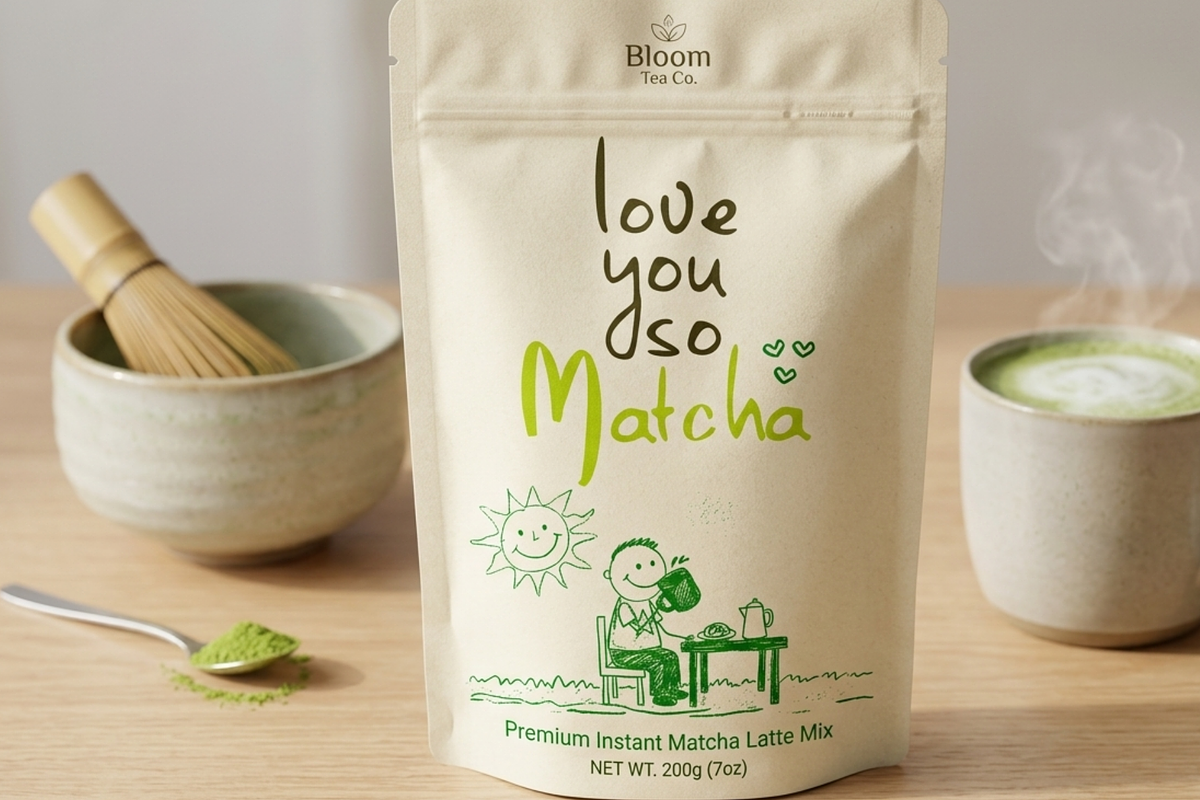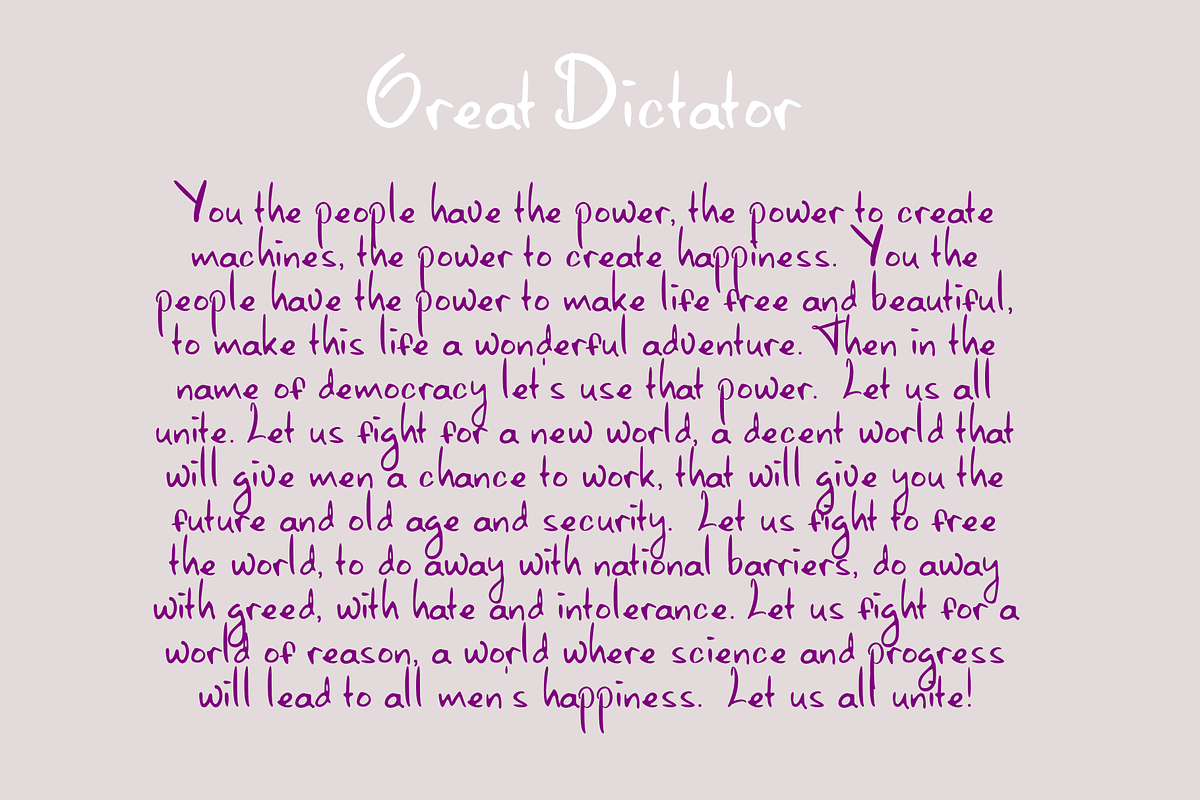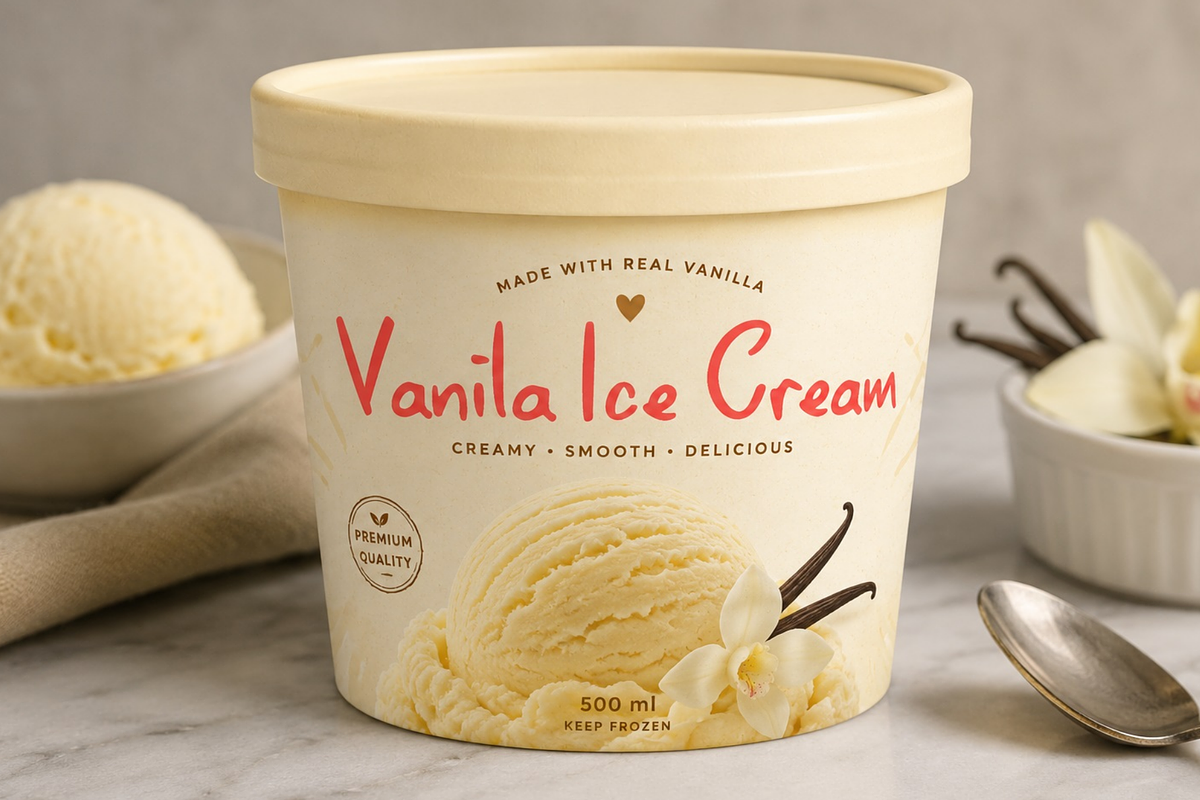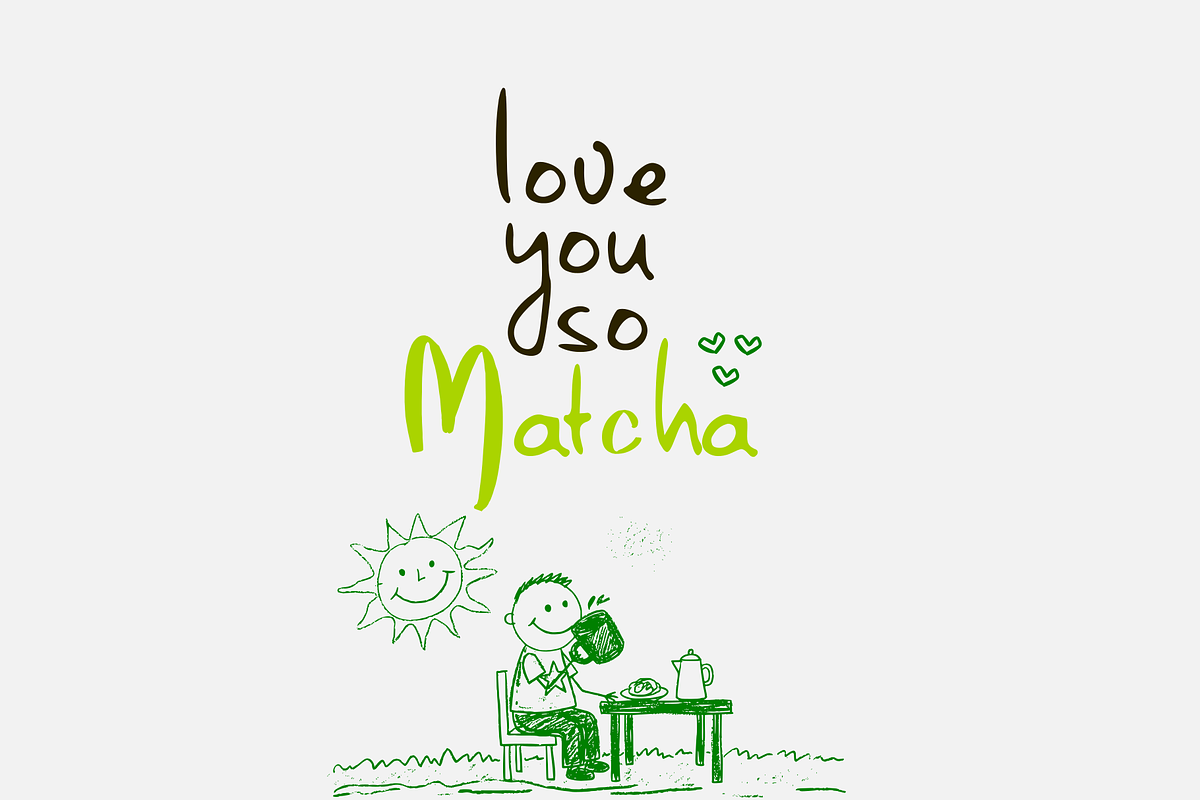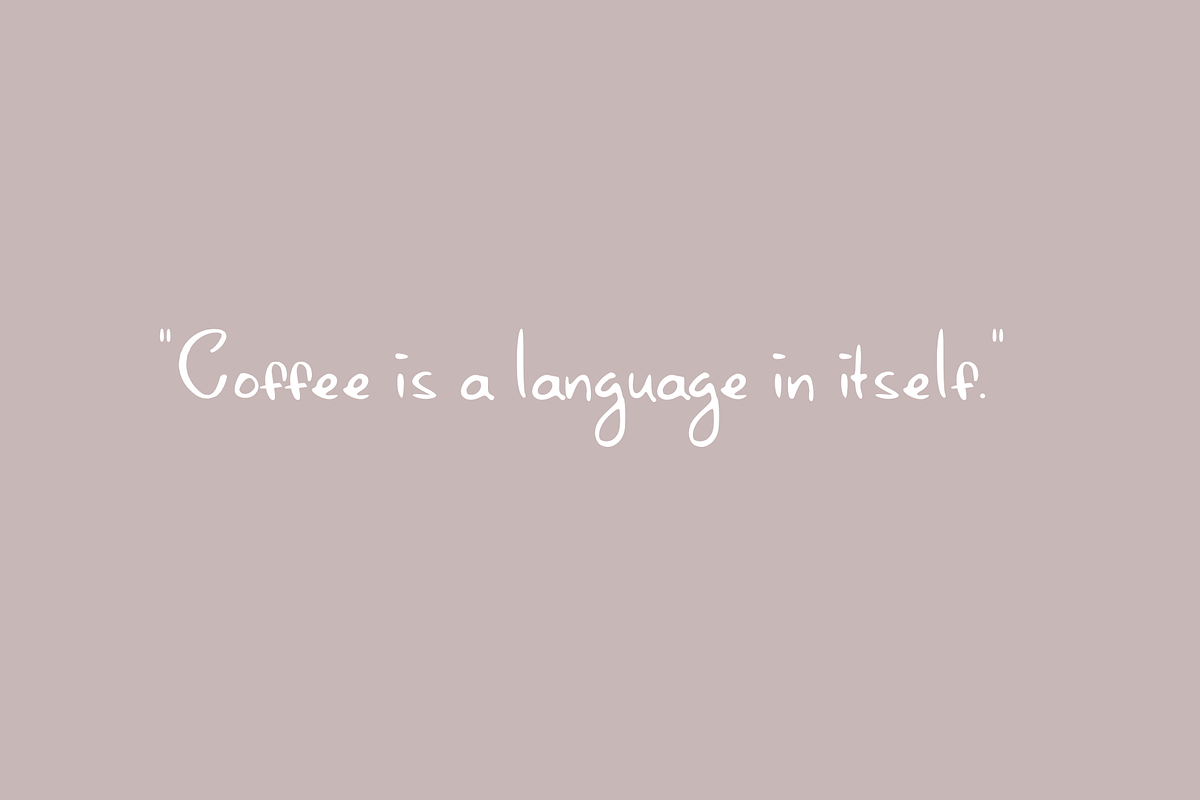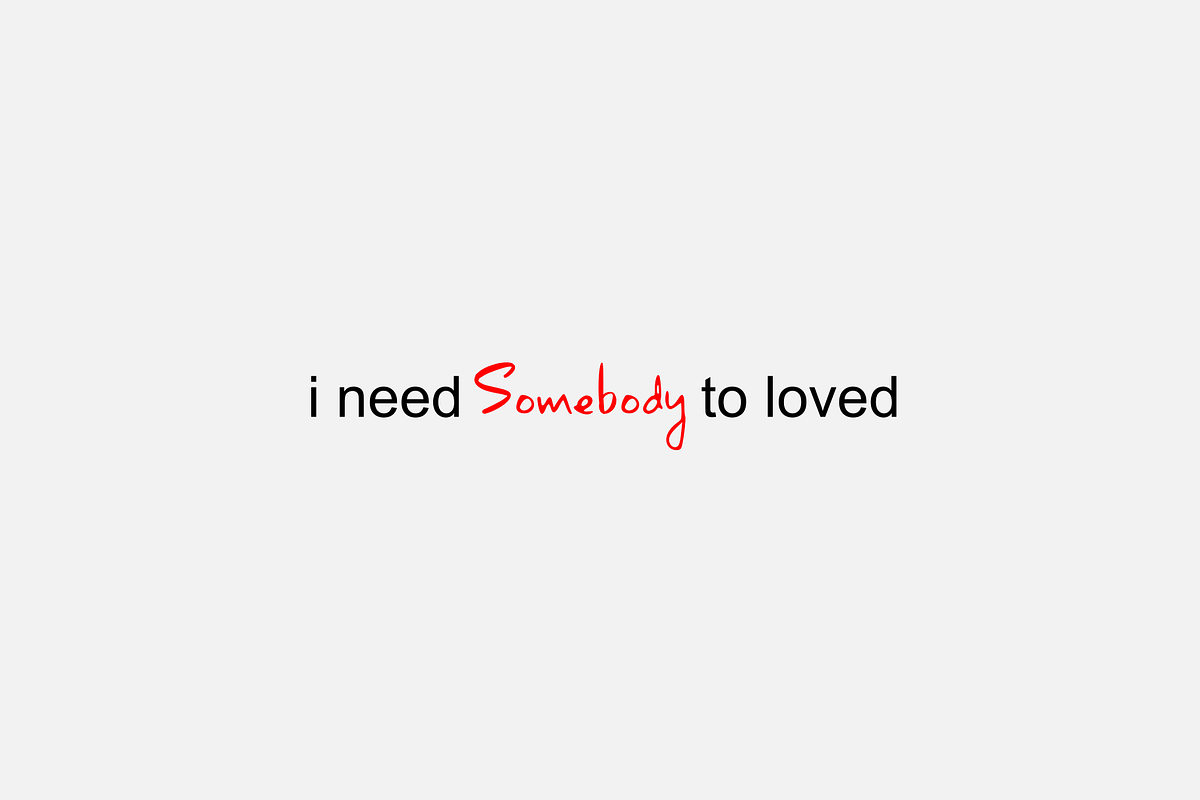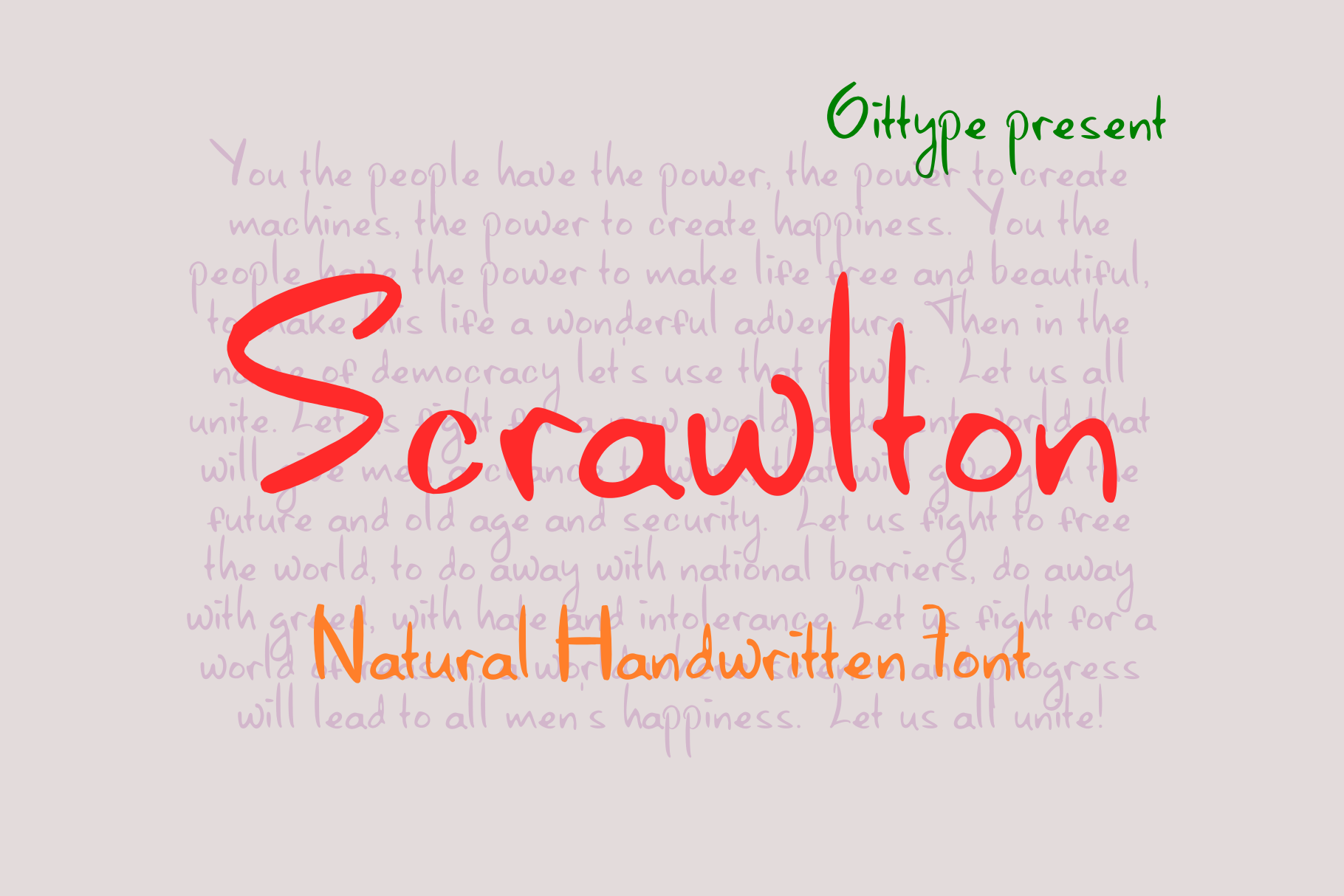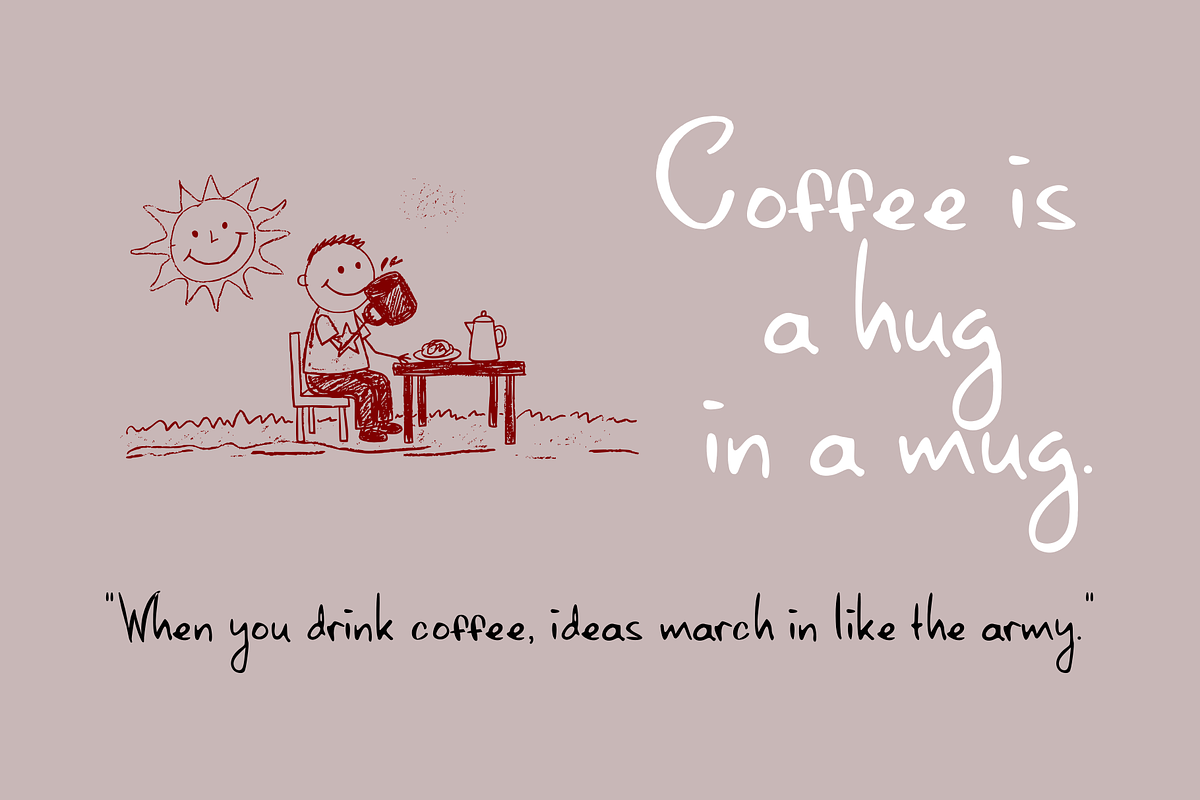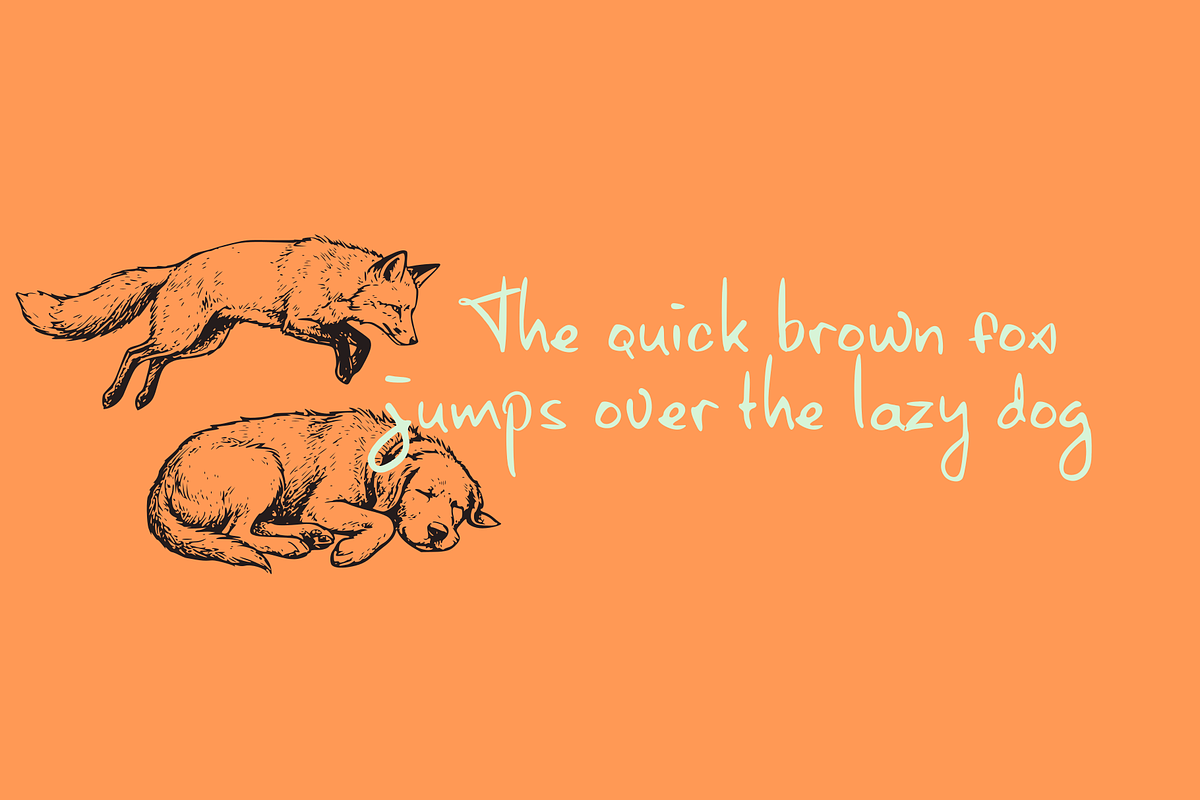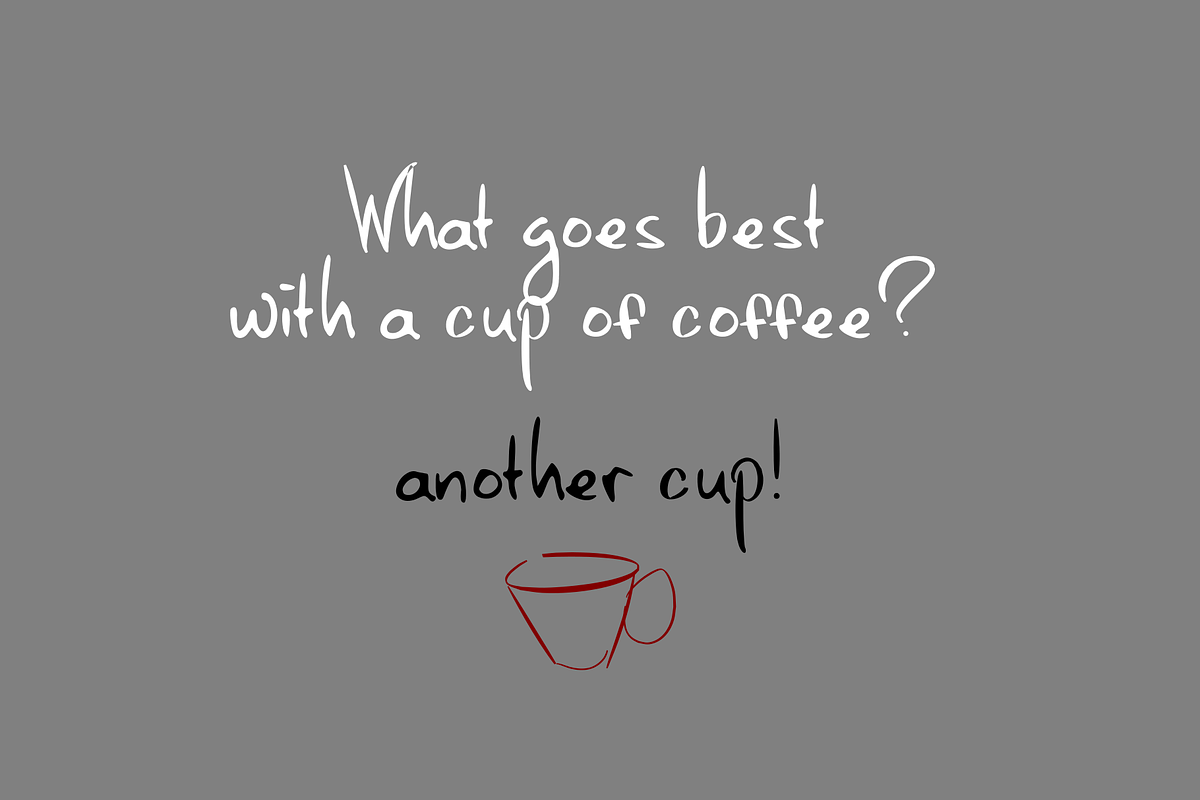
Scrawlton - Handwritten Pen font
Scrawlton is a casual, authentic handwritten font that captures the charm of quick, spontaneous script writing. With its thin strokes, playful baseline, and natural imperfections, Scrawlton brings a genuine human touch to any design project — perfect for when you want typography that feels personal, not printed.
Inspired by real handwriting, this handwritten font features loose, uneven letterforms and a light, airy weight that sets it apart from bold brush-style scripts. Each character has subtle variations in stroke width and slant, giving your text an organic, one-of-a-kind feel.
Logo & branding design
Greeting cards & invitations
Social media graphics & Instagram quotes
Packaging & product labels
Journals, planners & stationery
Website headers & blog graphics
T-shirt & merchandise designs
Wedding & event stationery